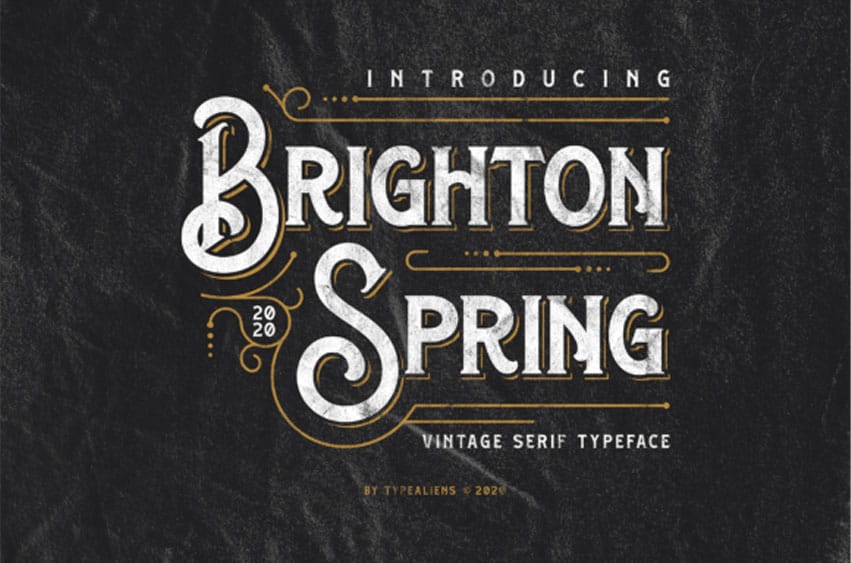
Brighton Spring Font is a beautiful serif font. It features a vintage style that will brighten up any crafting project.
It will elevate a wide range of design projects to the highest level, be it branding, headings, wedding designs, invitations, signatures, logos, labels, and much more!